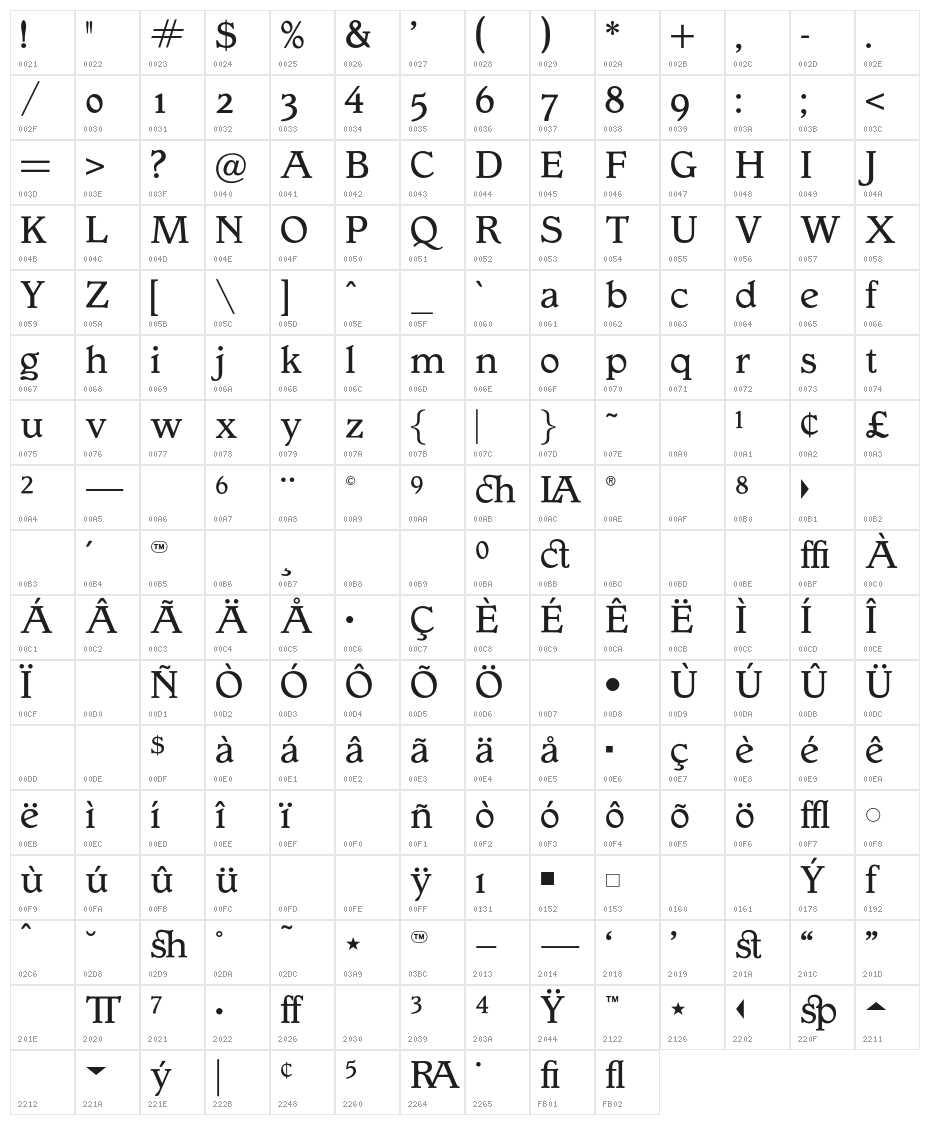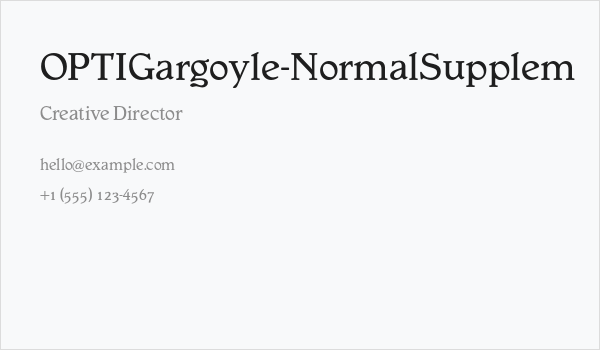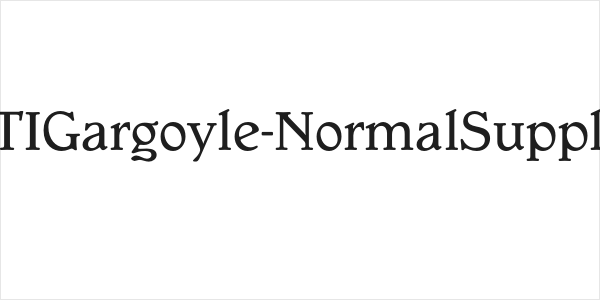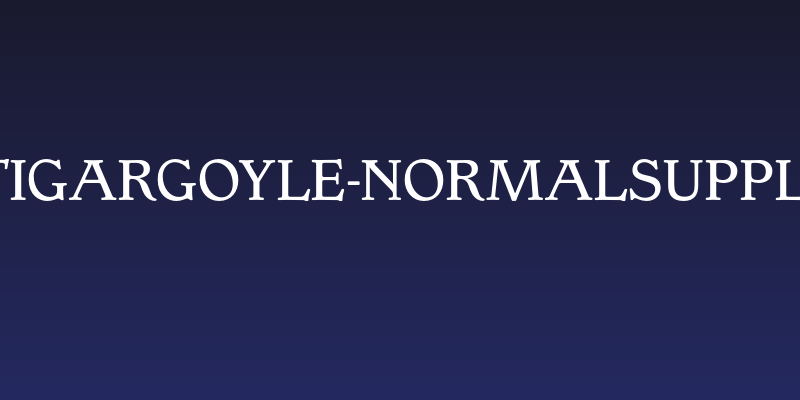
OPTIGargoyle-NormalSupplem Font
OPTIGargoyle-NormalSupplem Description
This font exhibits a classic serif style with a touch of elegance and sophistication. The characters are well-defined with a moderate contrast between thick and thin strokes, giving it a timeless appeal. The serifs are pronounced yet not overly ornate, providing a balanced and readable appearance. The uppercase letters stand tall and commanding, while the lowercase letters maintain a consistent flow with slightly rounded edges. The numerals are clear and distinct, making them easily legible. Special characters are thoughtfully designed to match the overall aesthetic, ensuring versatility across various applications.